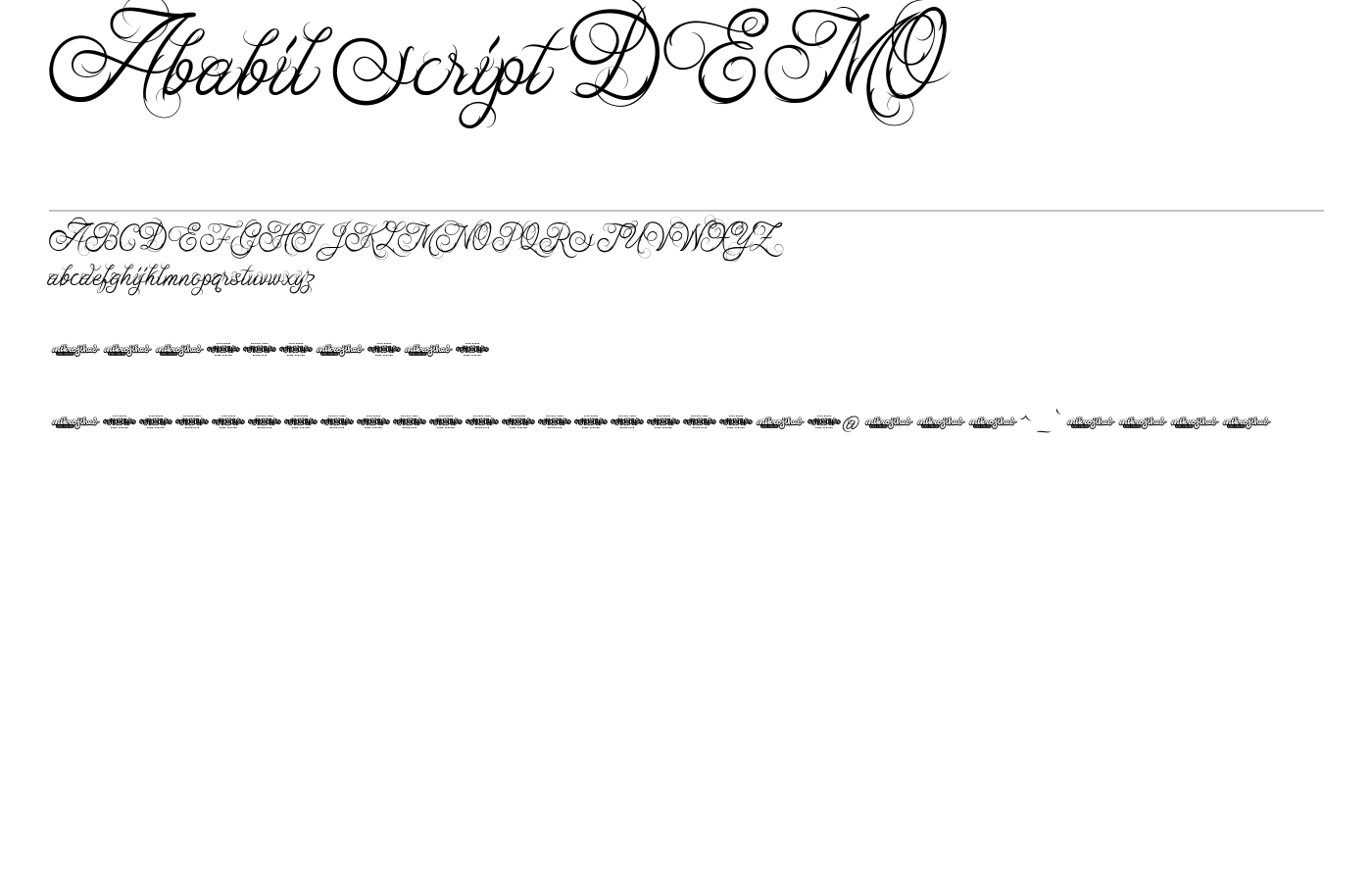
Ababil Script DEMO is an elegant and highly decorative script font distinguished by its delicate, flowing strokes and elaborate swashes. Its fine, intricate lines and flourishing letterforms create a luxurious and classic feel, making it ideal for sophisticated branding, wedding invitations, and high-end editorial designs where a touch of refinement and artistic flair is desired. This font excels in large sizes and headline use, where its ornamental style can truly shine.
Ababil Script DEMO Font
About Ababil Script DEMO Font
| Font family | Ababil Script DEMO Font |
| Designer | Hendra Pratama (mikrojihad) |